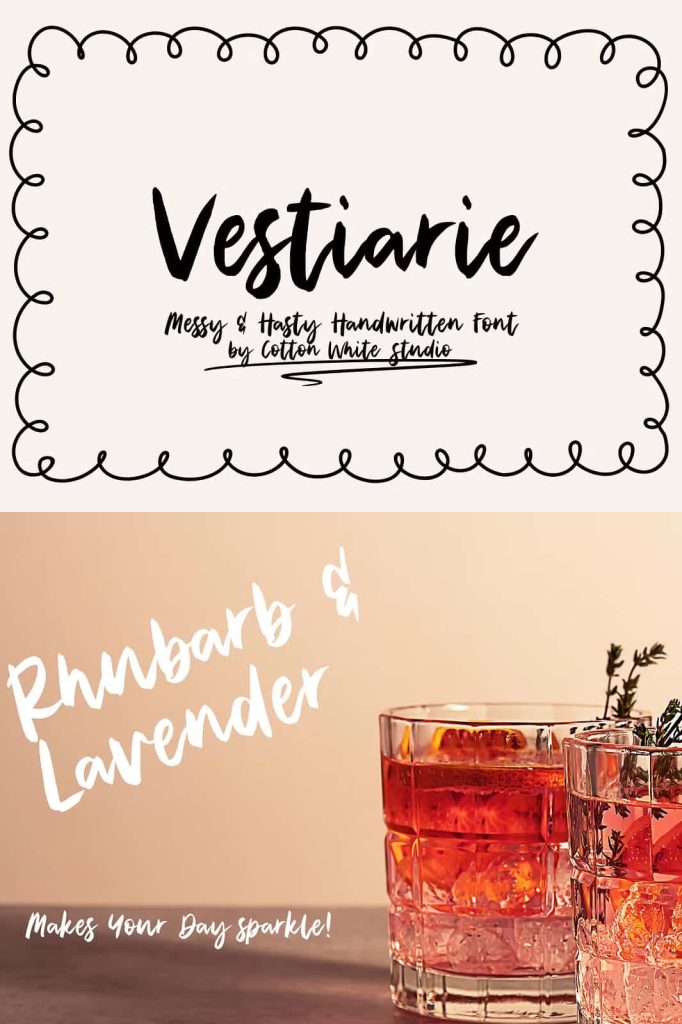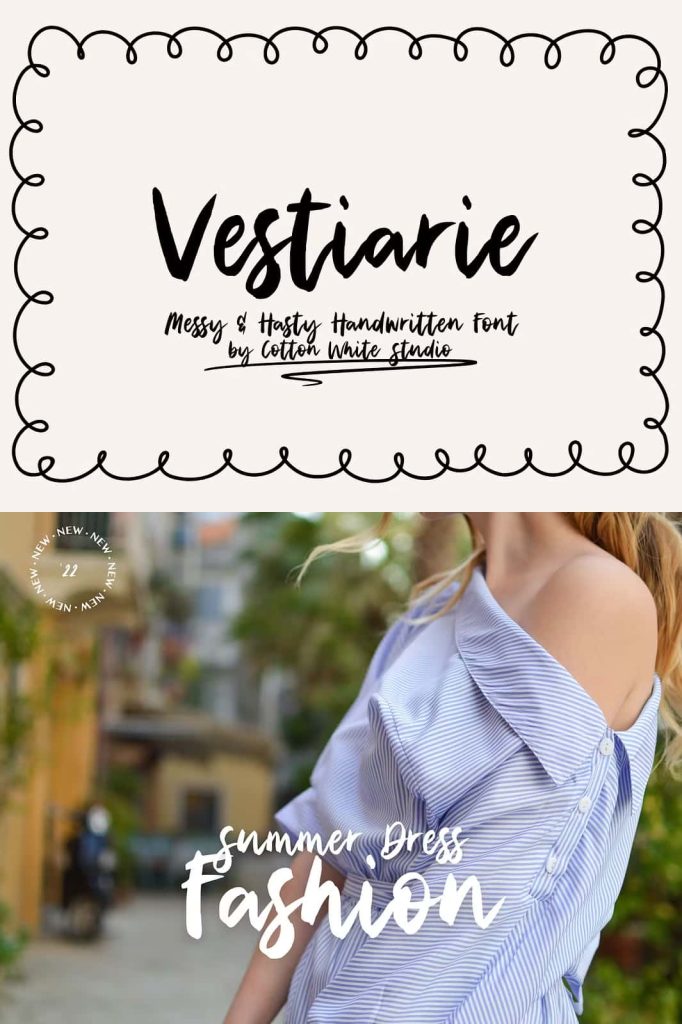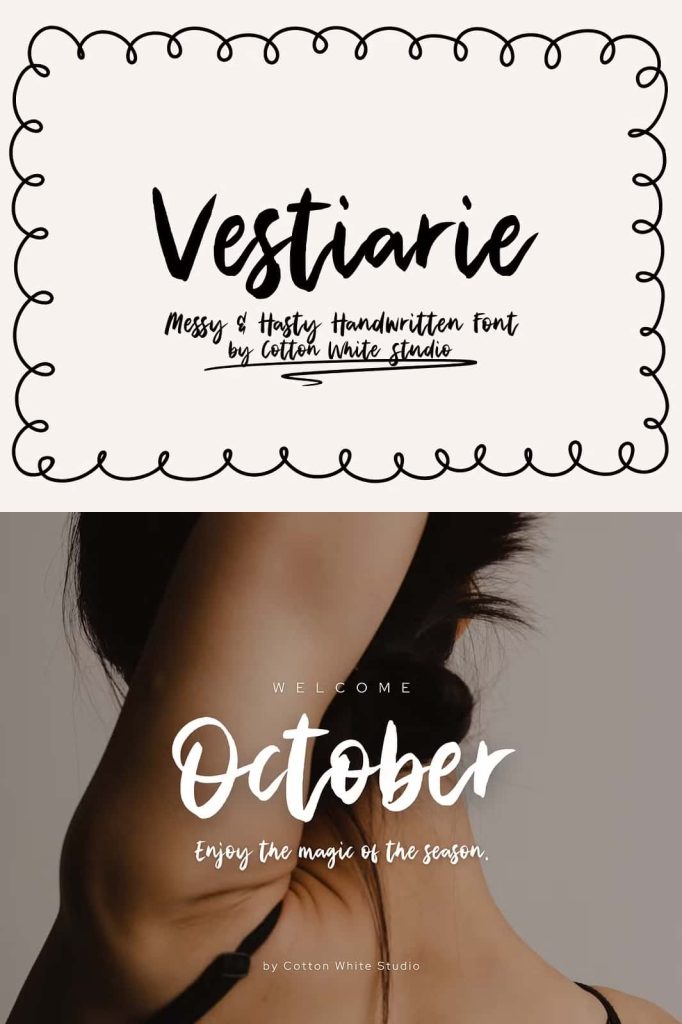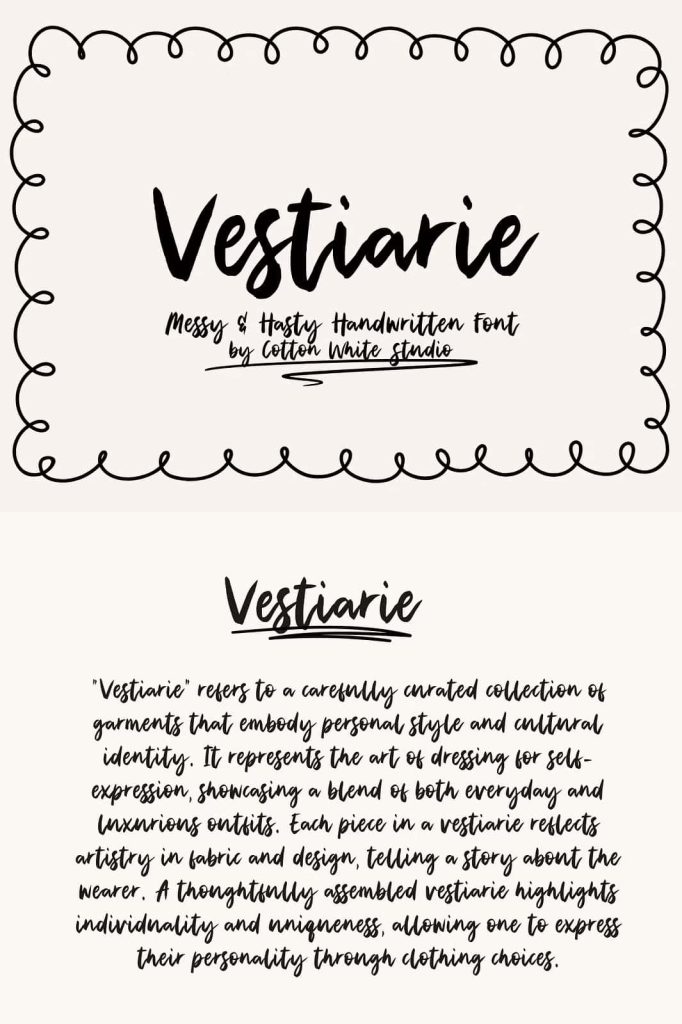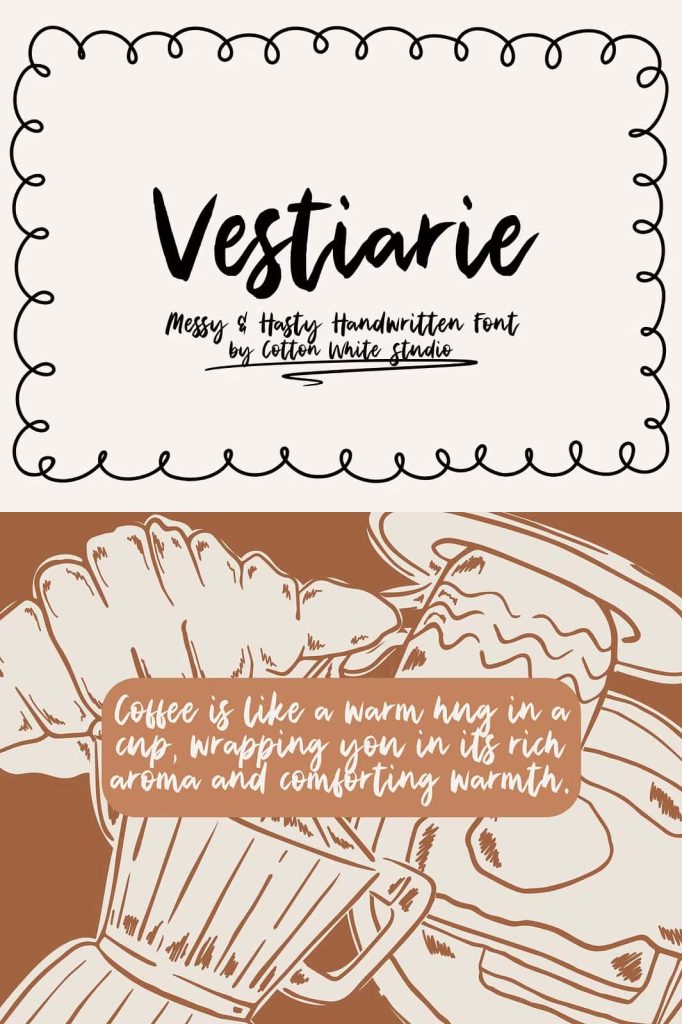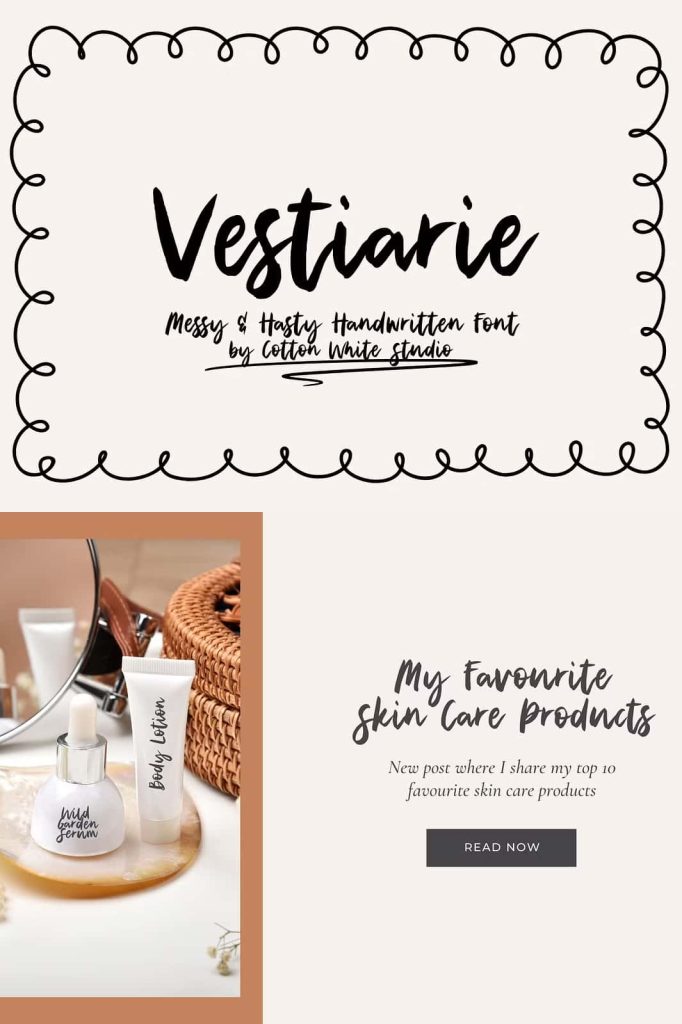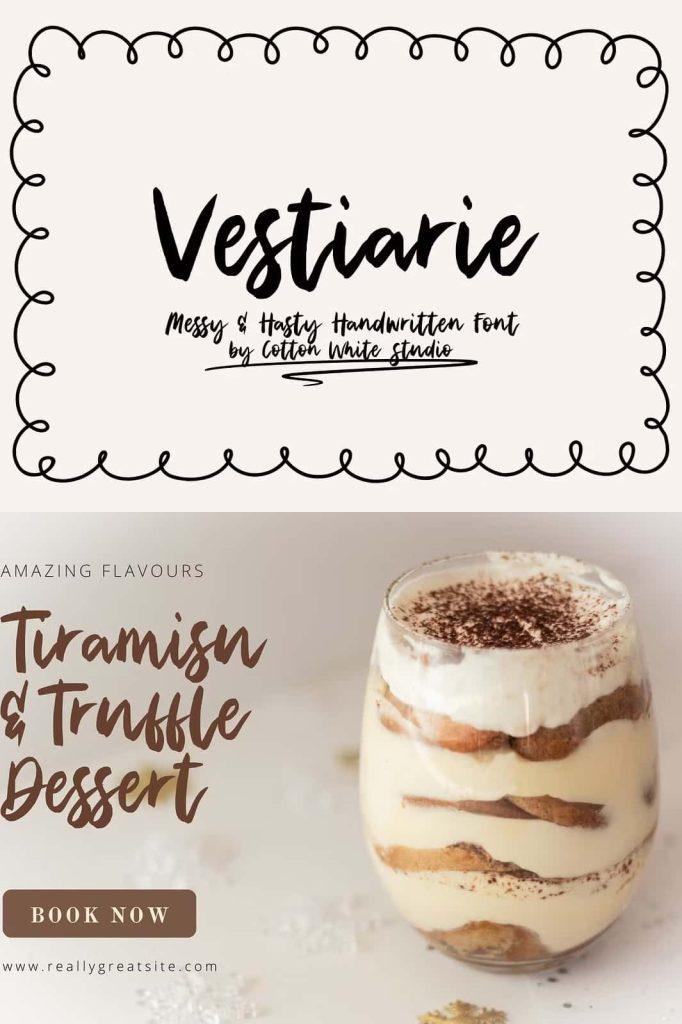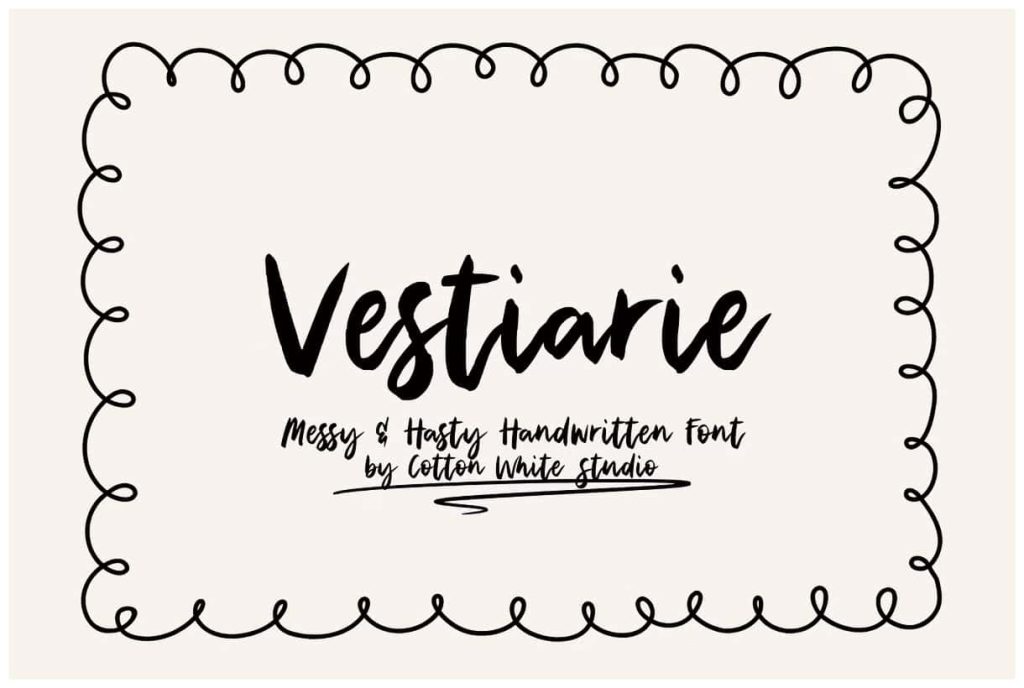
Vestiarie Handwritten FontleastedFebruary 17, 2025Fonts Unleash your creativity with our charming Messy Handwritten Font! Perfectly imperfect Download